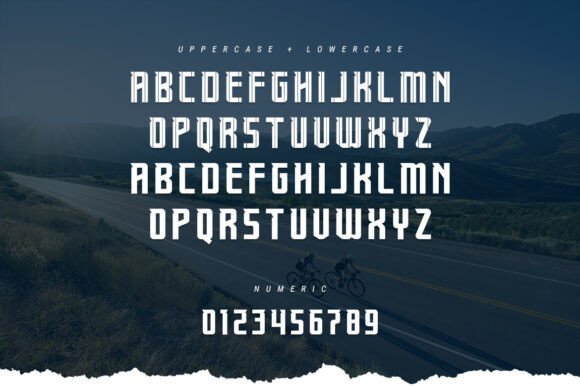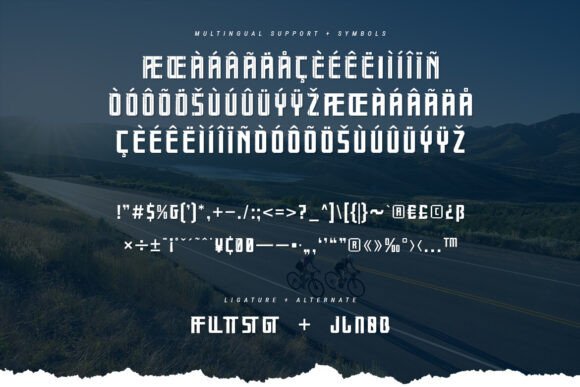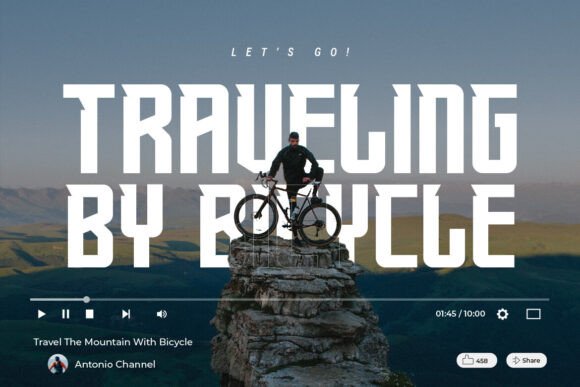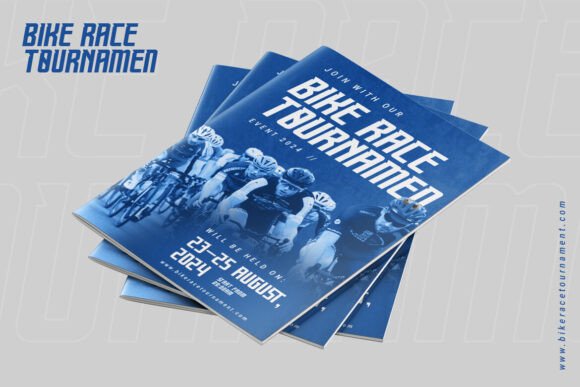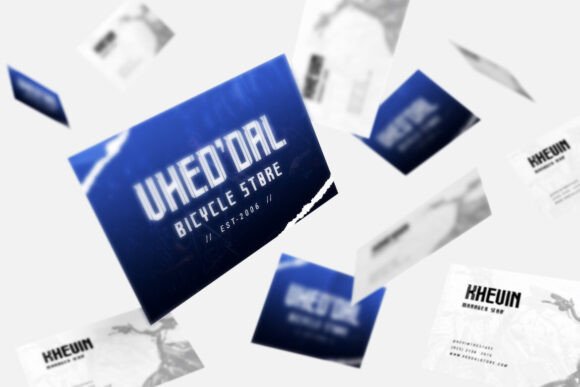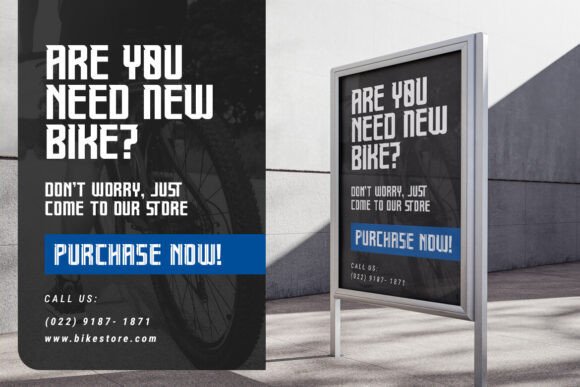
Introducing Arnation Font: The Ultimate Bold and Energetic Sport Jersey Typeface
Are you looking for a font that embodies the spirit of sports and athleticism? Look no further than Arnation Font, a bold and energetic sport jersey typeface designed to bring dynamic impact and team spirit to your projects. With its strong geometric shapes, sharp angles, and athletic proportions, Arnation is the perfect choice for sports branding, jersey numbers, team logos, event posters, and athletic apparel.
Key Features of Arnation Font
- Strong Geometric Shapes: Arnation’s design is rooted in strong geometric shapes that evoke a sense of power and stability. Its bold lines and sharp angles give it a confident presence that’s perfect for sports branding.
- Athletic Proportions: The font’s athletic proportions make it ideal for jersey numbers, team logos, and event posters. Its clean lines and balanced design ensure that it remains legible even at large sizes.
- Clean Lines: Arnation’s clean lines make it easy to read from a distance, while still conveying power and motion. This makes it perfect for designing sports merchandise, such as t-shirts, hats, and water bottles.
The Benefits of Using Arnation Font
So why choose Arnation Font for your next project? Here are just a few benefits of using this versatile typeface:
- Instant Recognition: Arnation’s bold design ensures that your message gets noticed. Whether you’re designing a logo, jersey, or event poster, Arnation helps you grab attention and make a lasting impression.
- Versatility: Arnation is a versatile font that can be used across a wide range of applications, from sports branding to merchandise design. Its clean lines and athletic proportions make it suitable for both digital and print projects.
- Easy to Read: Despite its bold design, Arnation remains easy to read even at small sizes. This makes it perfect for designing sports apparel, such as jerseys and t-shirts, where legibility is crucial.
How to Use Arnation Font in Your Designs
Ready to bring the game-day vibe to your typography? Here are some ideas for using Arnation Font in your designs:
- Sports Branding: Use Arnation to create bold and dynamic logos for sports teams, leagues, and events.
- Jersey Design: Arnation is perfect for designing jersey numbers, names, and logos that make a statement on the field or court.
- Event Posters: Create eye-catching event posters for sports tournaments, marathons, and other athletic events using Arnation’s bold and energetic design.
- Athletic Apparel: Use Arnation to design bold and stylish athletic apparel, such as t-shirts, hats, and water bottles.
In conclusion, Arnation Font is a bold and energetic sport jersey typeface that’s perfect for designers and crafters looking to bring dynamic impact and team spirit to their projects. With its strong geometric shapes, sharp angles, and athletic proportions, Arnation is the ultimate choice for sports branding, jersey numbers, team logos, event posters, and athletic apparel. So why wait? Download Arnation Font today and start creating bold and dynamic designs that make a statement!
Arnation Font in Action
To give you a better idea of what Arnation Font can do, here are some examples of the font in action:
Tips and Tricks for Getting the Most Out of Arnation Font
Here are some tips and tricks for getting the most out of Arnation Font:
- Experiment with Colors: Arnation Font looks great in a variety of colors, so don’t be afraid to experiment and find the perfect combination for your design.
- Play with Effects: Add depth and interest to your design by experimenting with effects such as gradients, shadows, and textures.
- Mix and Match: Combine Arnation Font with other fonts and design elements to create a unique and dynamic design.
Arnation Font: The Perfect Choice for Designers and Crafters
In conclusion, Arnation Font is the perfect choice for designers and crafters looking to create bold and dynamic designs that make a statement. With its strong geometric shapes, sharp angles, and athletic proportions, Arnation is the ultimate sport jersey typeface for sports branding, jersey numbers, team logos, event posters, and athletic apparel. So why wait? Download Arnation Font today and start creating!